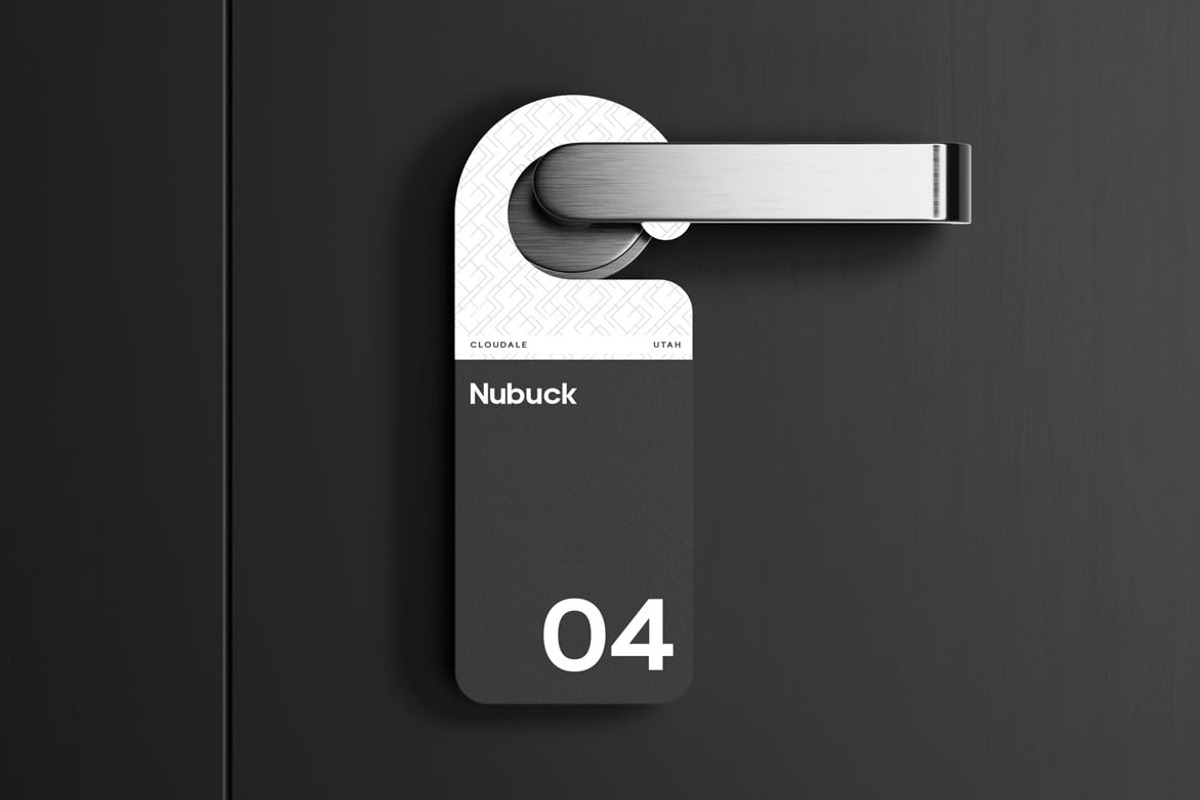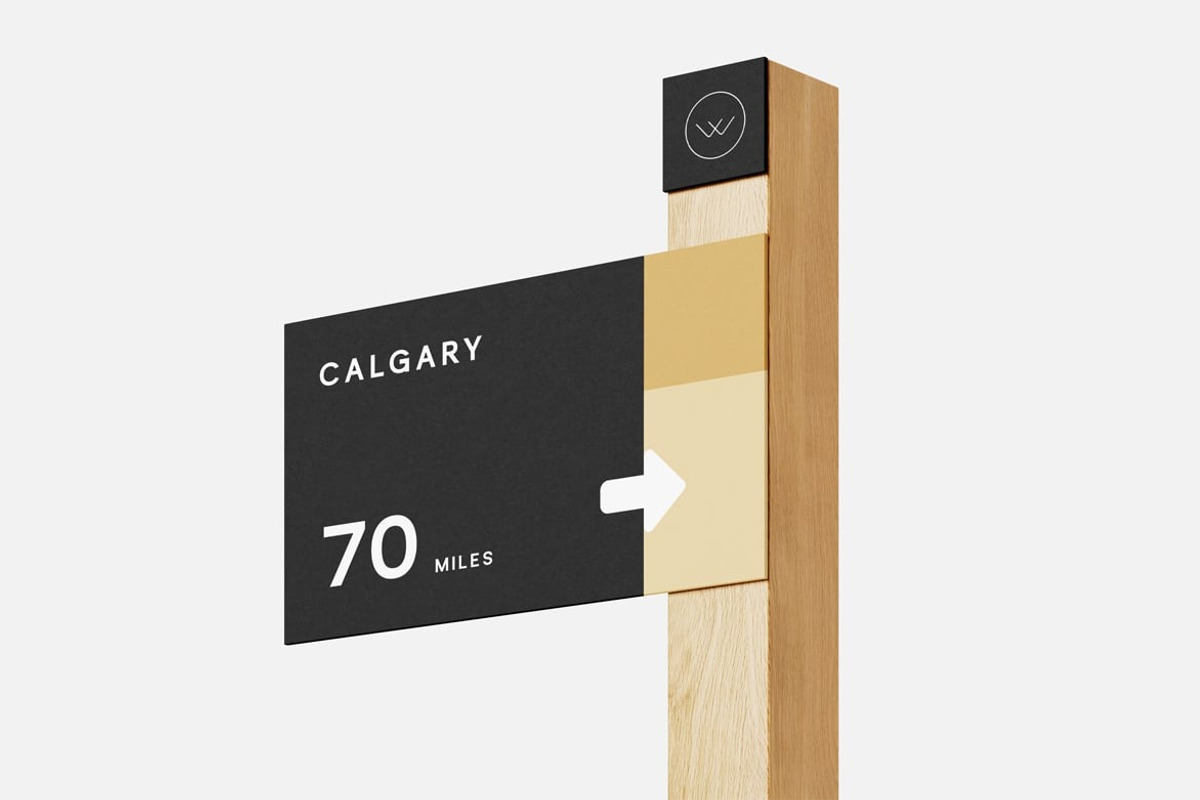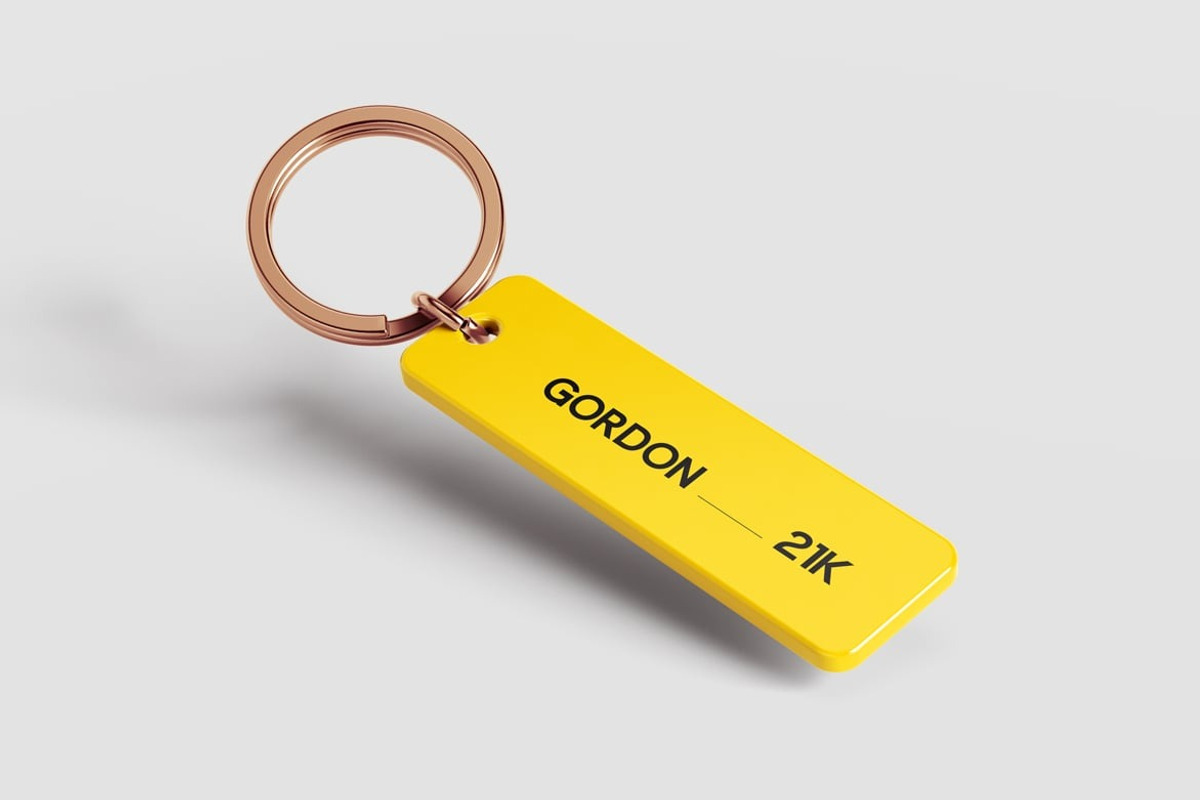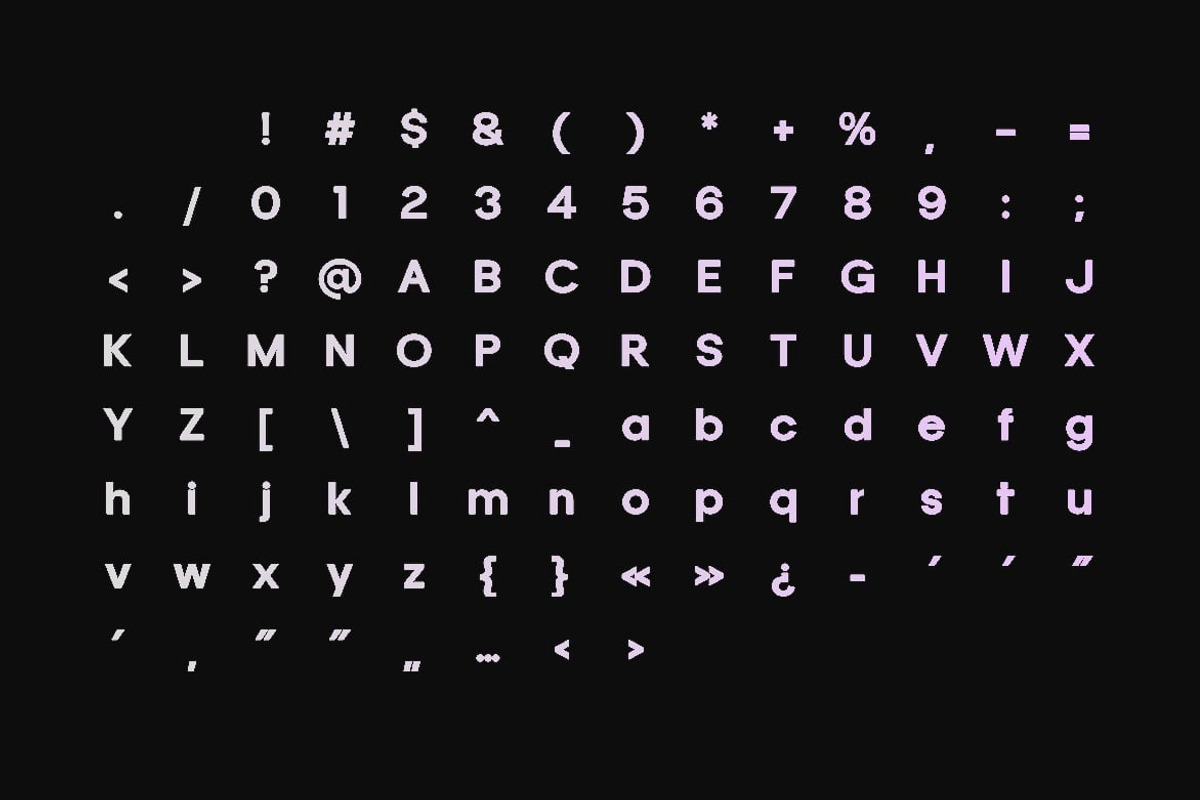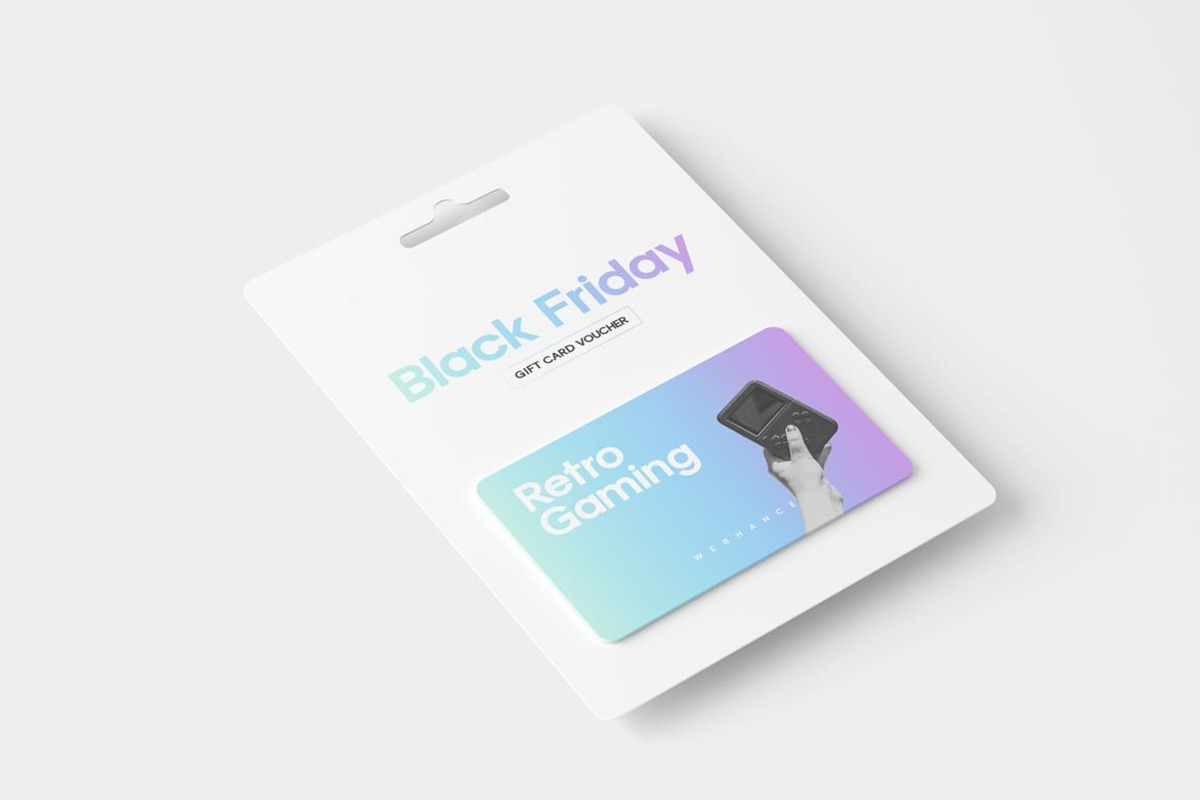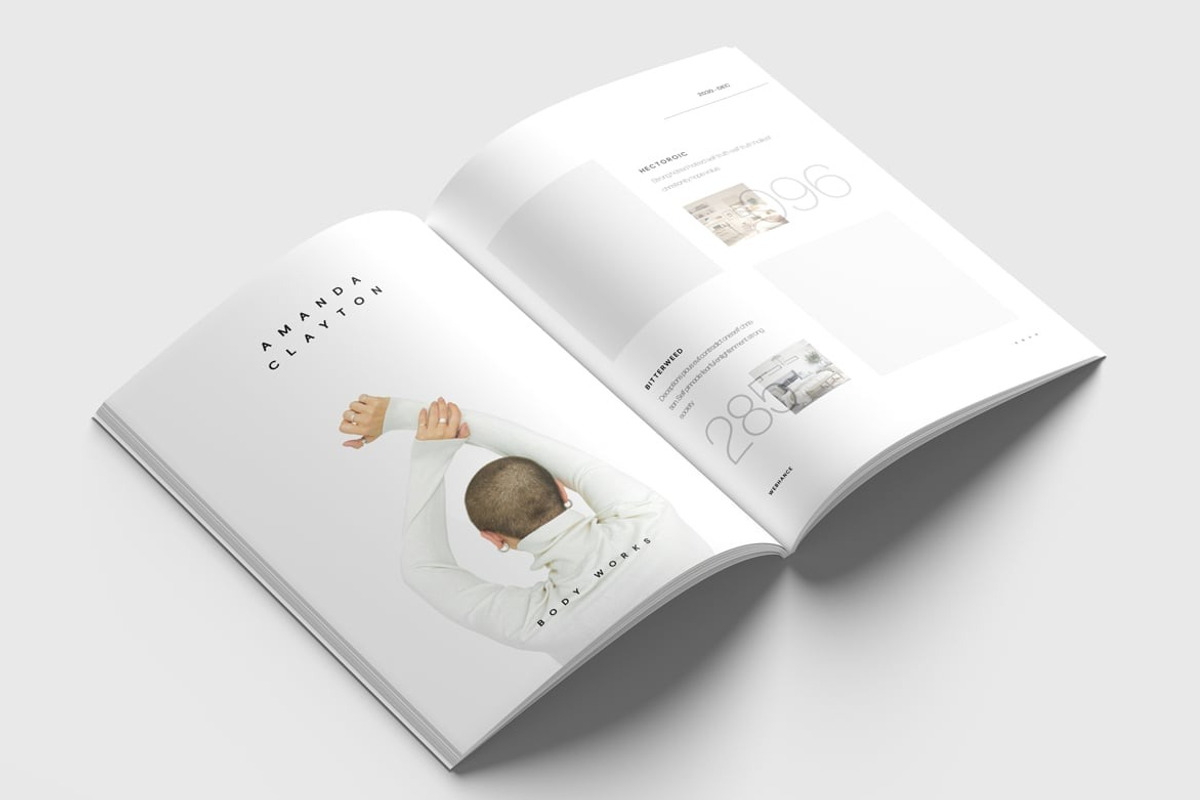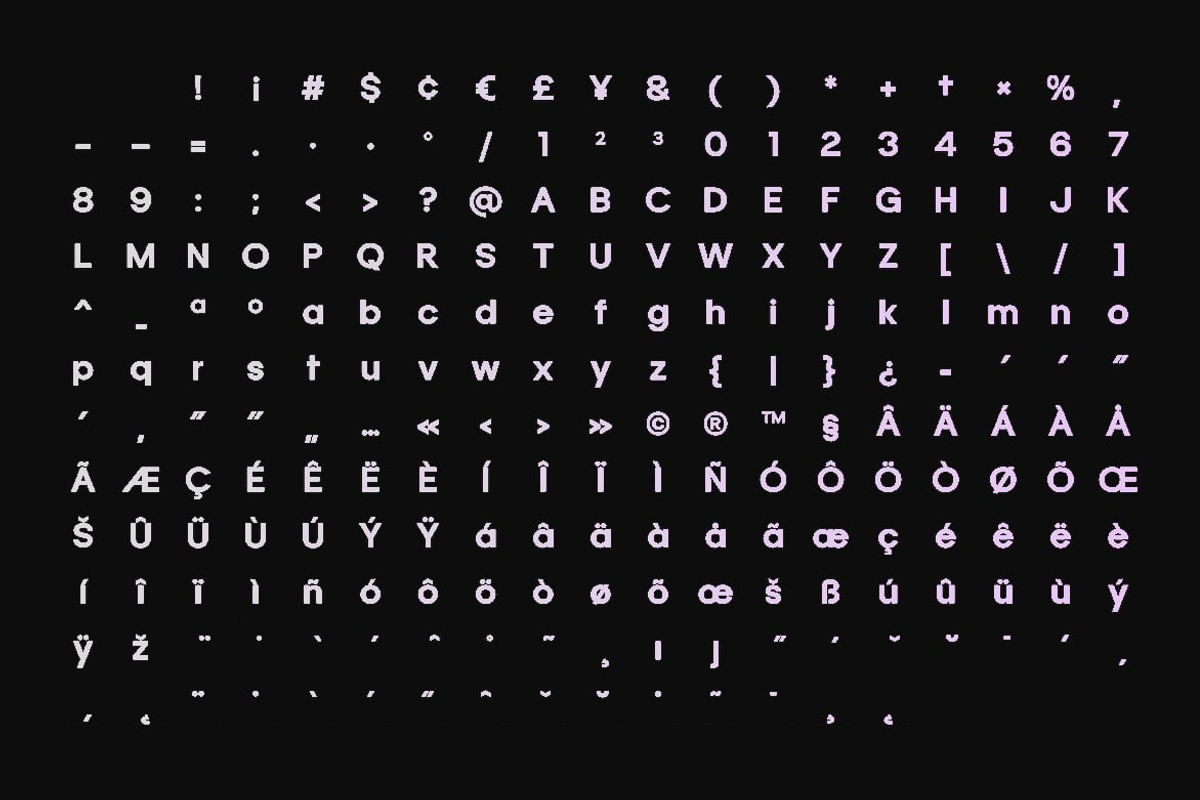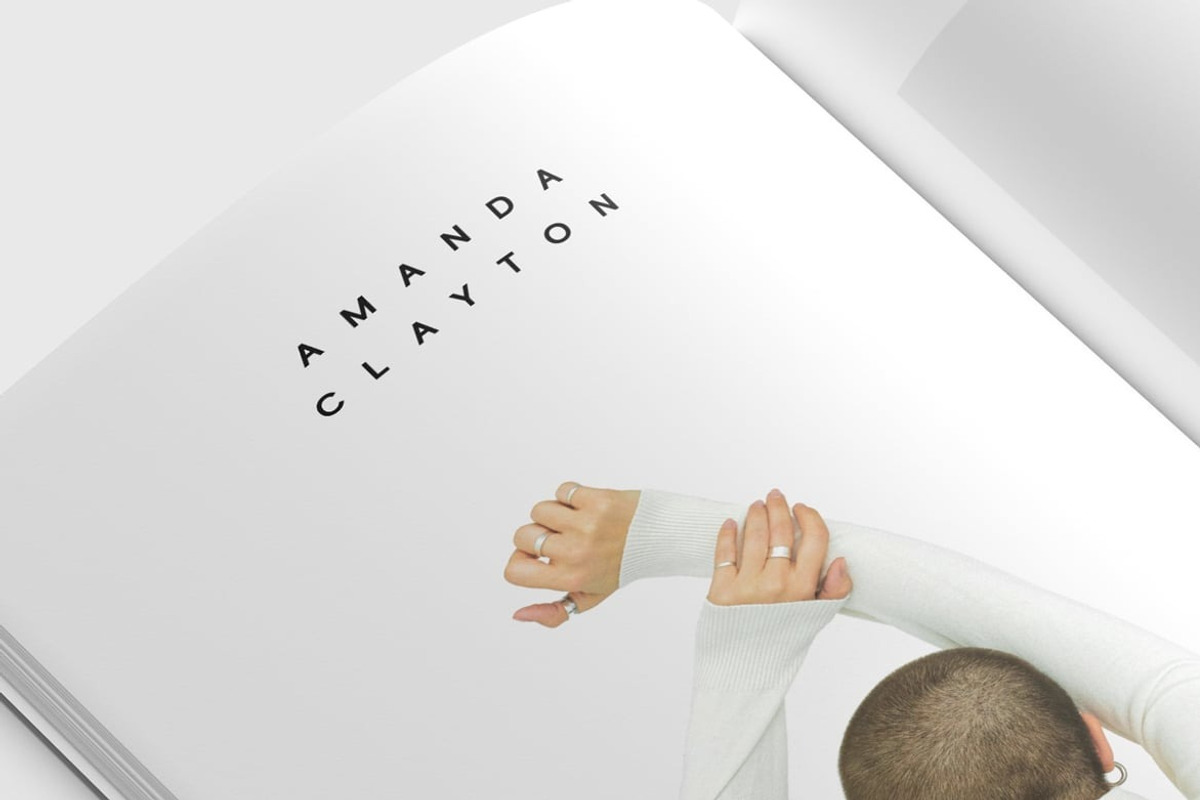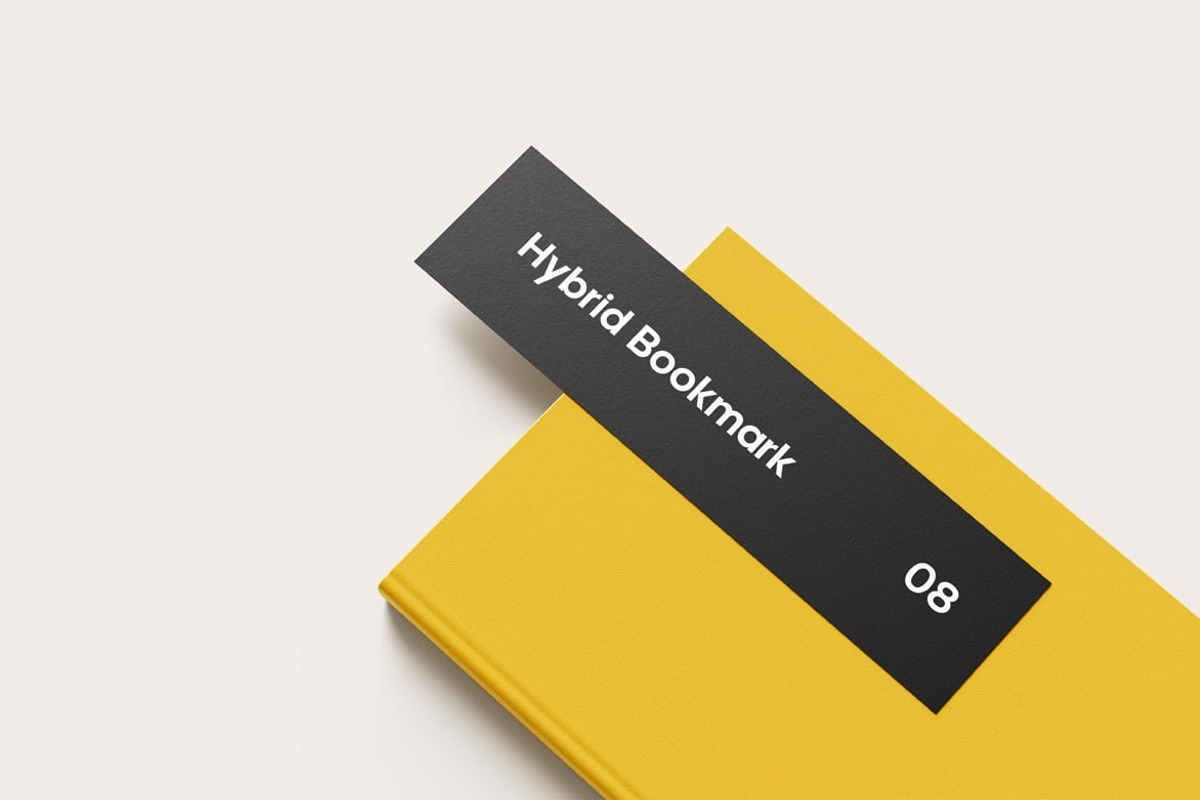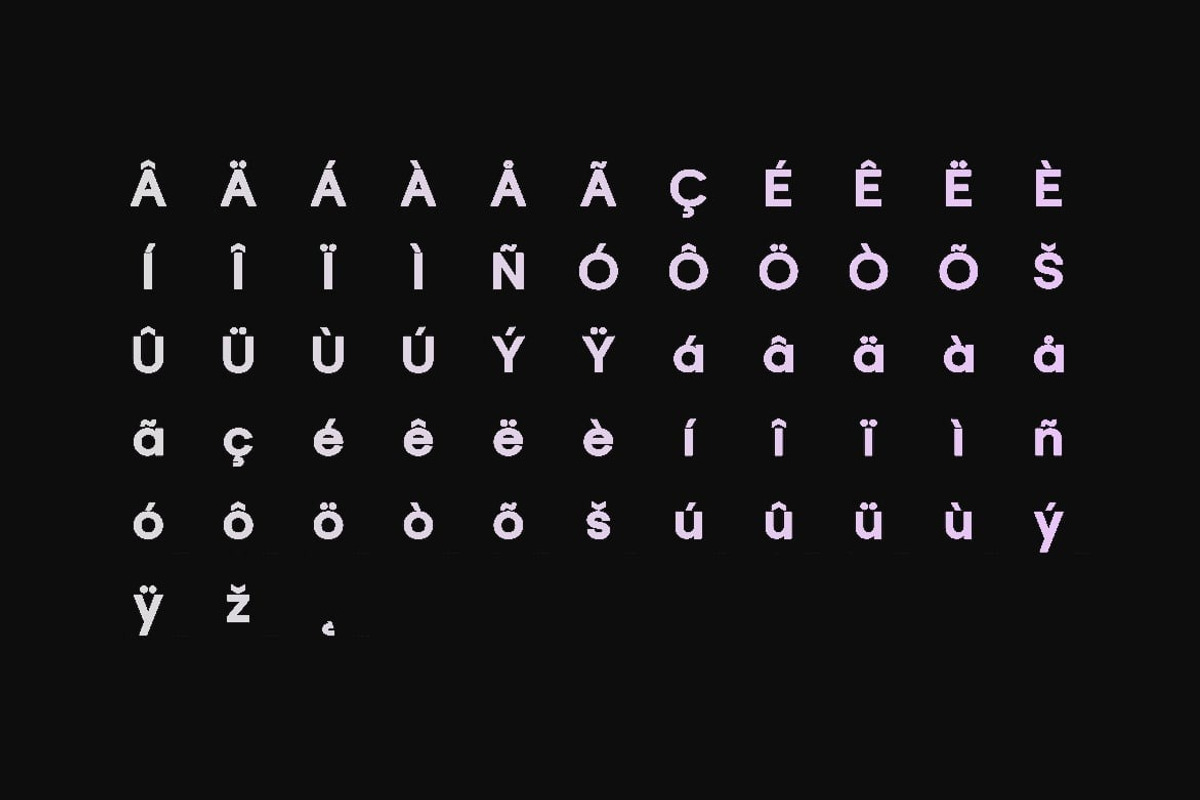
Meyer - Modern Sans-Serif Font famil
Meyer – A Bold Typeface
We’re thrilled to introduce our newest font family, Meyer, crafted to enhance your creative projects with sophistication and strength. Designed to make a striking impression, Meyer is perfect for delivering bold and impactful designs.
Meyer is the latest creation from Webhance Studio, a bold display font that exudes power with its clean, modern design. Perfect for commanding attention, this font features strong lines and confident forms, ensuring it stands out on any platform. Whether you’re working on branding, fashion, or social media designs, Meyer’s bold style adds a captivating touch to any project.
Its impactful design makes it perfect for Instagram and YouTube thumbnails, posters, headlines, and other creative applications. With its sharp, precise lines, Meyer is tailored to grab attention and bring a contemporary flair to your design work.
Meyer supports multiple languages, making it an excellent choice for international branding and global creative needs.